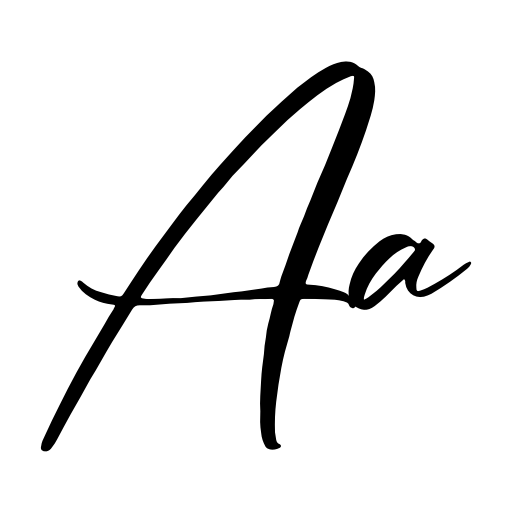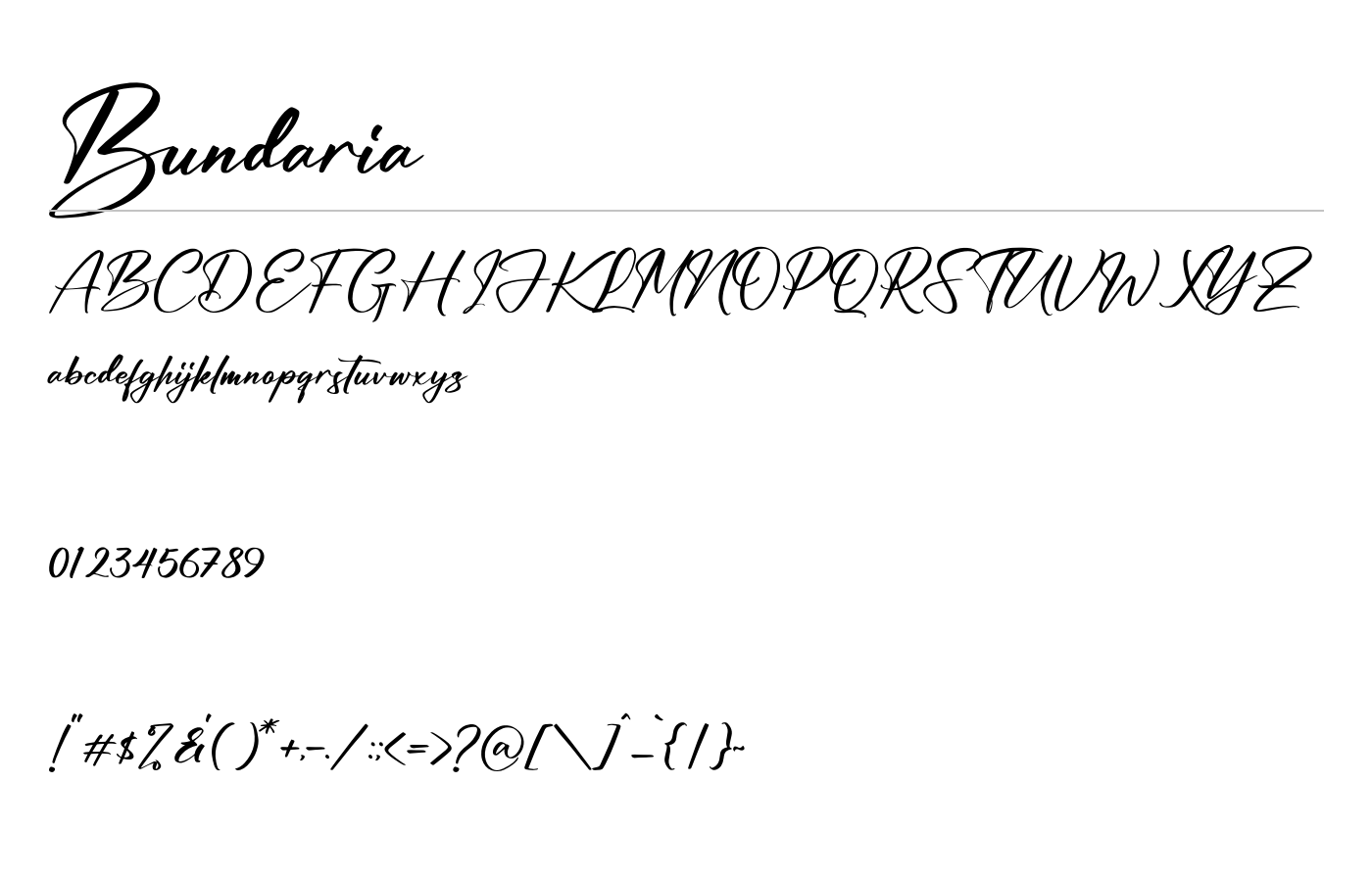
Bundaria is a graceful script font with elegant, flowing strokes that mimic natural handwriting, featuring a mix of thick and thin lines that add a dynamic, stylish flair. Its slender letterforms and smooth curves make it ideal for sophisticated branding, invitations, and feminine design projects where a personal, artistic touch is desired. This font works beautifully for headlines and logos, lending a refined yet approachable personality to any creative work.
Bundaria Font
About Bundaria Font